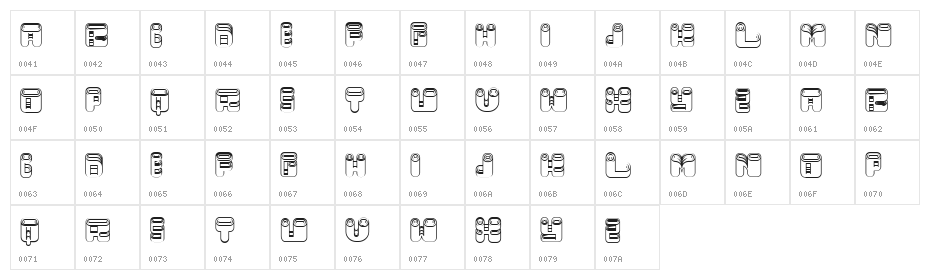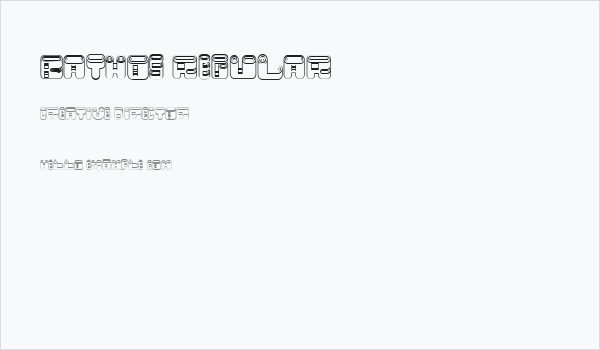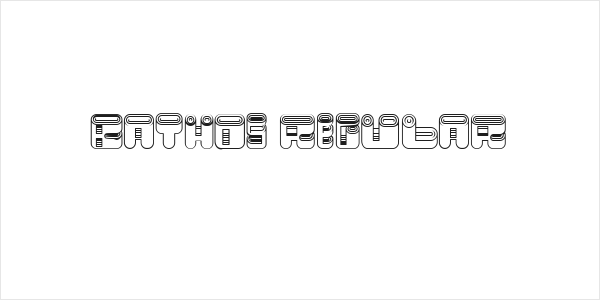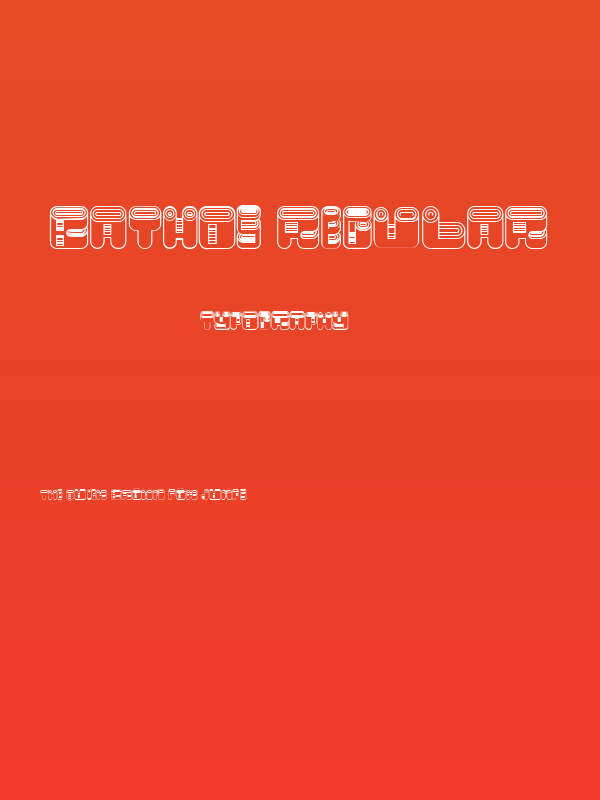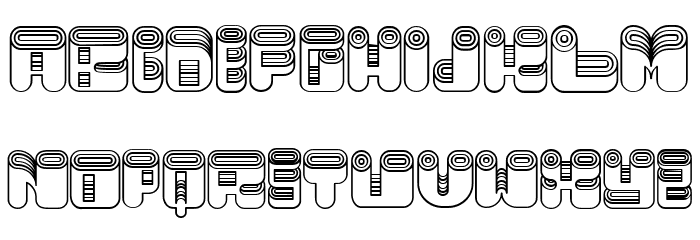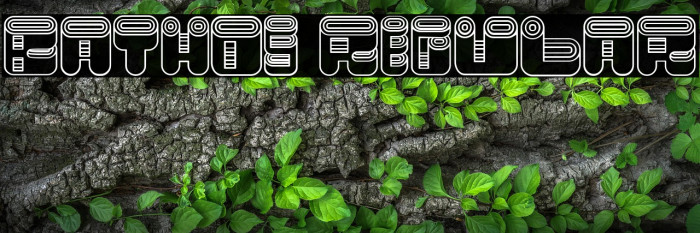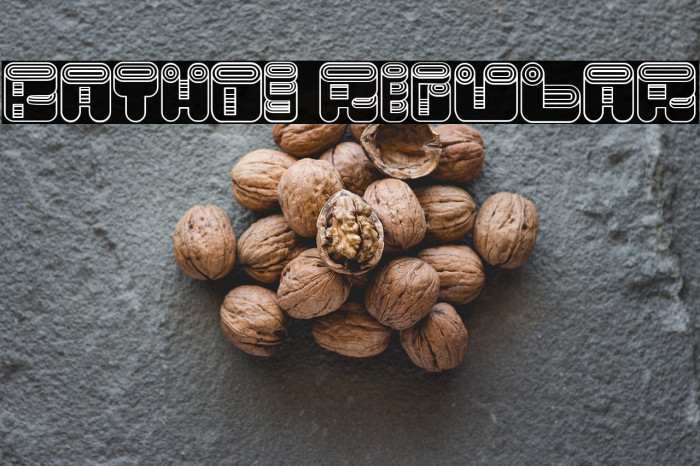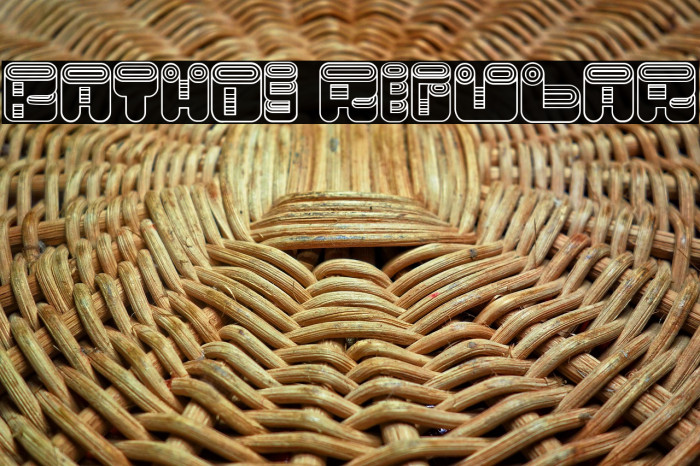
Bathos Regular Font
Bathos Regular Description
This font features a unique and playful design with a three-dimensional, outline style. Each character is crafted with intricate line work, giving it a layered, almost architectural appearance. The letters are bold and eye-catching, making them ideal for creative and artistic projects. The font's whimsical nature is emphasized by its rounded edges and the varied line thickness within each character, creating a sense of depth and movement. This font is perfect for projects that require a fun and engaging visual element, such as posters, album covers, or branding materials.